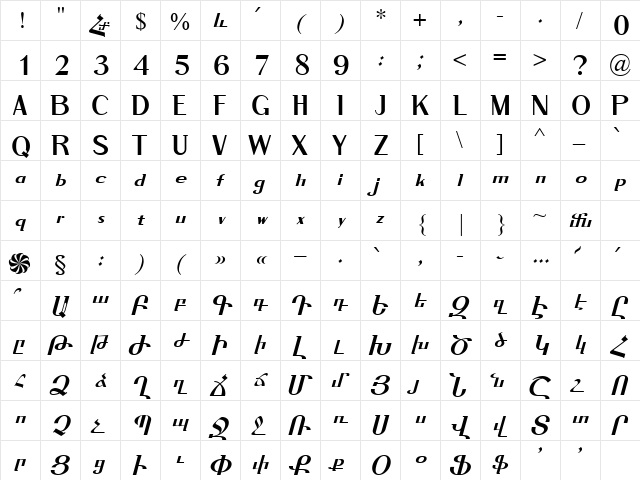
ArTarumianGrqiNor Italic
Design Context for ArTarumianGrqiNor Typeface
ArTarumianGrqiNor is a composed and adaptable typeface that performs quietly and consistently across a wide range of design contexts. The slanted form adds forward momentum and visual energy.